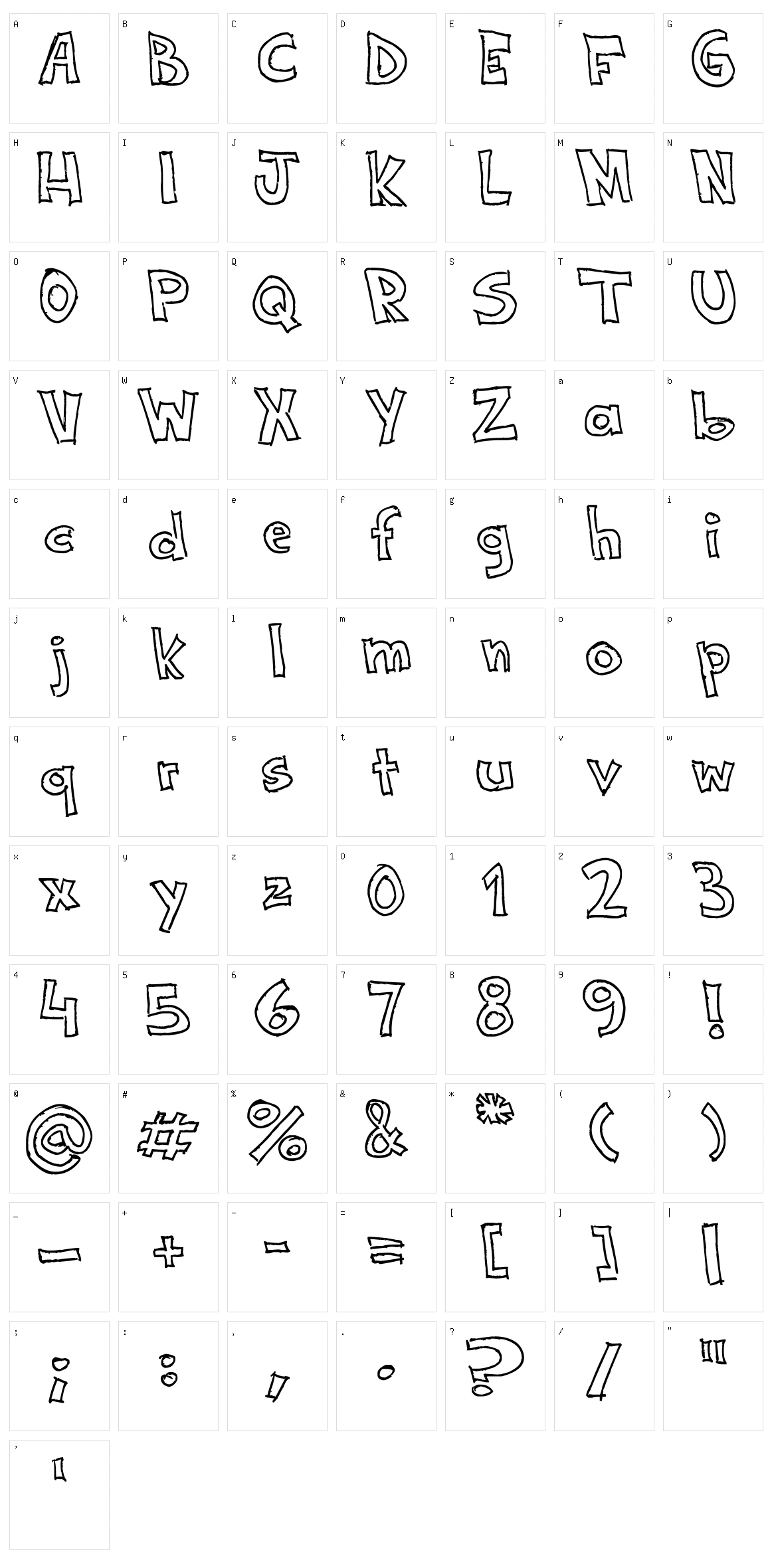
The free font NeNe WeNo Width HandWrite is carefully designed by NeNe_WeNo, showcasing a thoughtful balance of creativity and usability and falls under the Cartoon font style. When you download the ZIP file, it contains only 33.11 KB of font files, making it lightweight and quick to download. Please review the license details below to understand permitted usage and distribution rights. If license information is not available, we recommend using this font for personal projects only or contacting the author directly for commercial usage permissions.